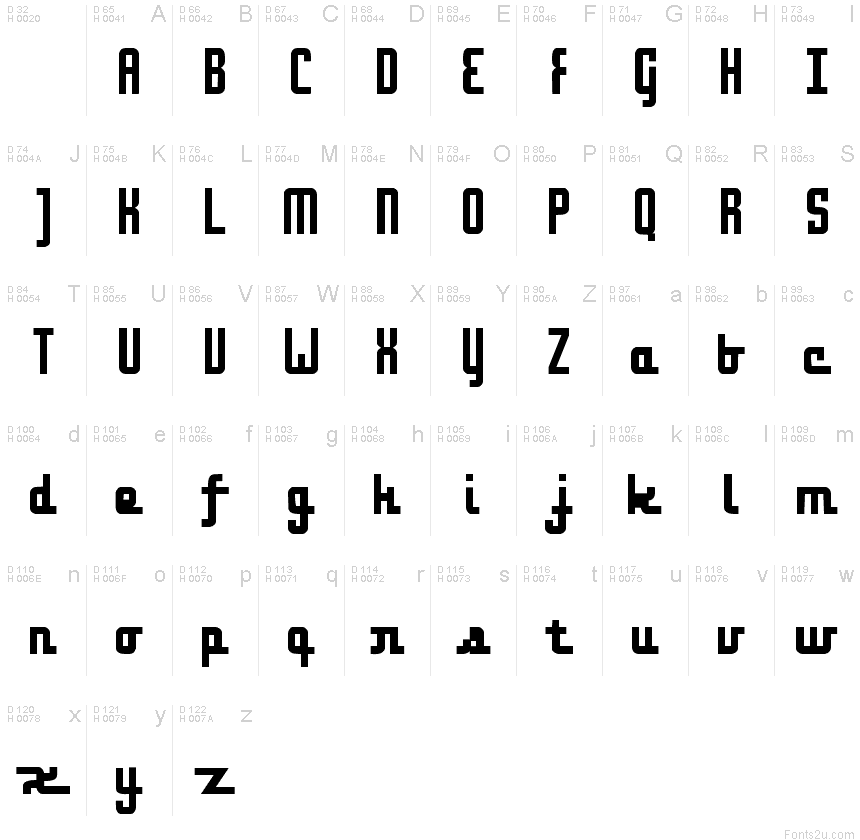
onakite Thin
Onakite Thin font by Niels Bonnevie is a free modern display font with rounded rectangular letterforms, squared corners, and a firm modular rhythm. The shapes feel assembled from simple blocks, with some letters opening into narrow cutouts that give the whole face a stripped-down, graphic character.
Onakite Thin works well for poster titles, logo marks, album art, packaging labels, and short signage where that blocky structure can carry the layout. This free font also suits tech branding, editorial accents, and game-related graphics because its compact forms keep the wording tight and geometric without losing its distinctive construction.